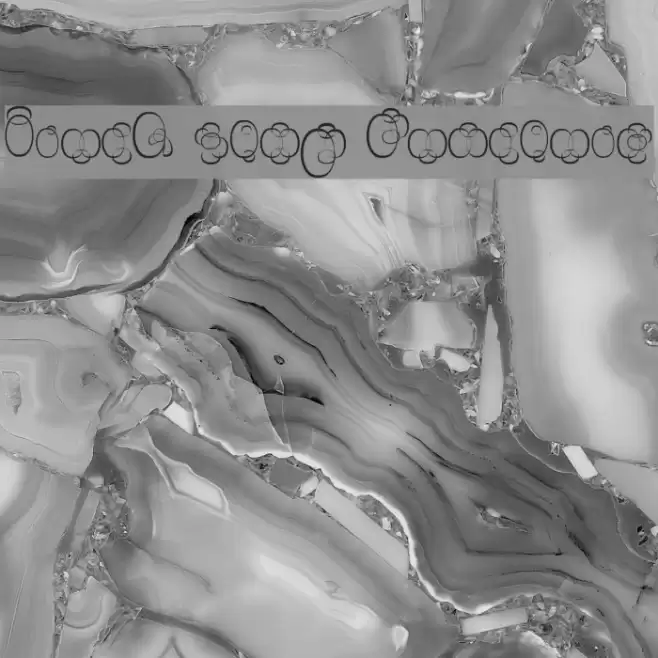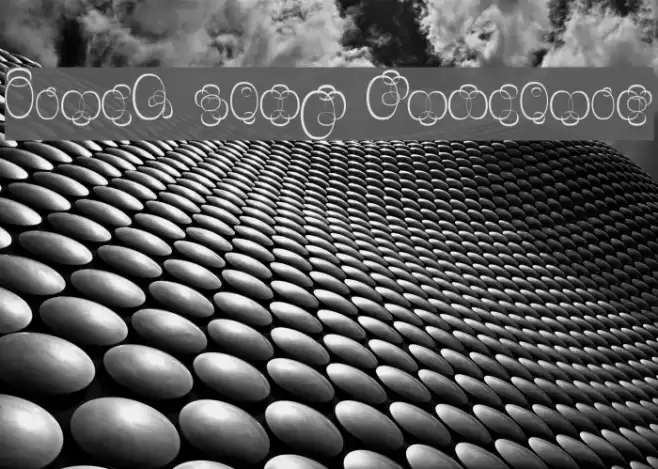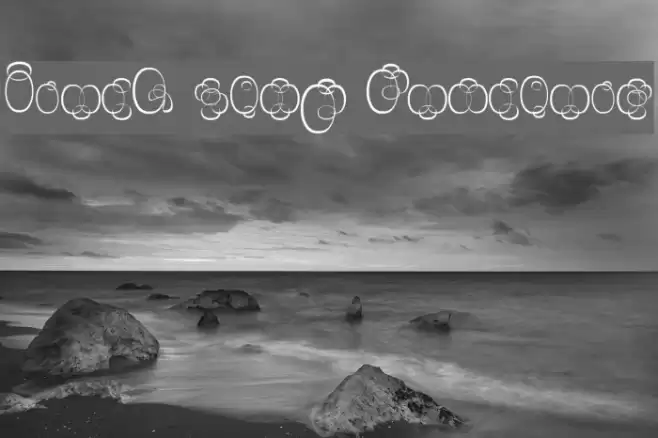
Truck stop Puncture Font
Truck stop Puncture Description
This font features a highly decorative and abstract design, characterized by overlapping circular shapes that form each character. The letters are composed of multiple concentric circles, creating a sense of depth and complexity. The overall appearance is playful and artistic, with a unique visual rhythm that makes it stand out. The font lacks traditional structure, opting instead for a freeform style that emphasizes creativity and visual interest. It is not suitable for body text due to its intricate design but can be used effectively for artistic projects or as a statement piece in graphic design.
An abstract, decorative font with overlapping circular shapes forming each character from bubble letter fonts.
- Proposed Projects: Ideal for artistic projects, posters, album covers, or any design requiring a bold, creative statement.
- Width: Expanded
- Character Spacing: Wide
- Contrast:
- Use Case: Logos, Headlines, Artistic projects